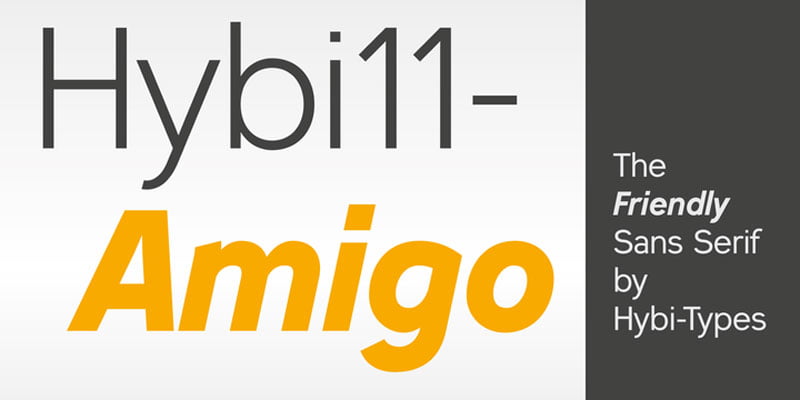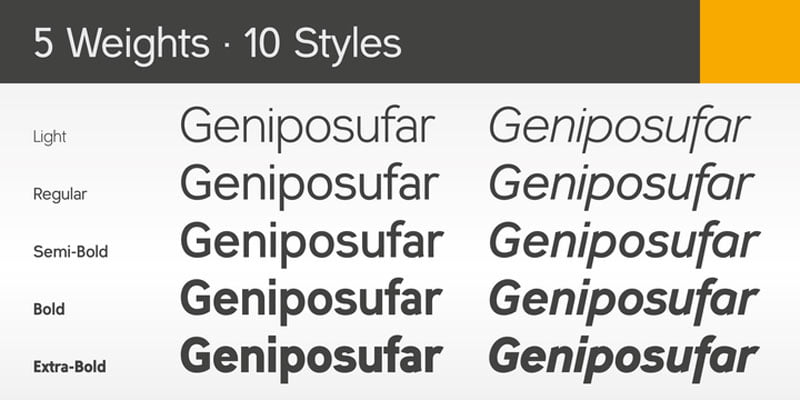
Hybi11 Amigo Font Family
Introducing the Hybi11 Amigo Font Family. When it comes to designing a sans serif, many designers stick closely to existing models. How boring. Others try to demonstrate self-reliance by special stylistic elements – at the cost of readability or aesthetics, or both. I did choose a different way: My Font should just look pretty and friendly, being a good buddy for all days. This is how the name is explained.